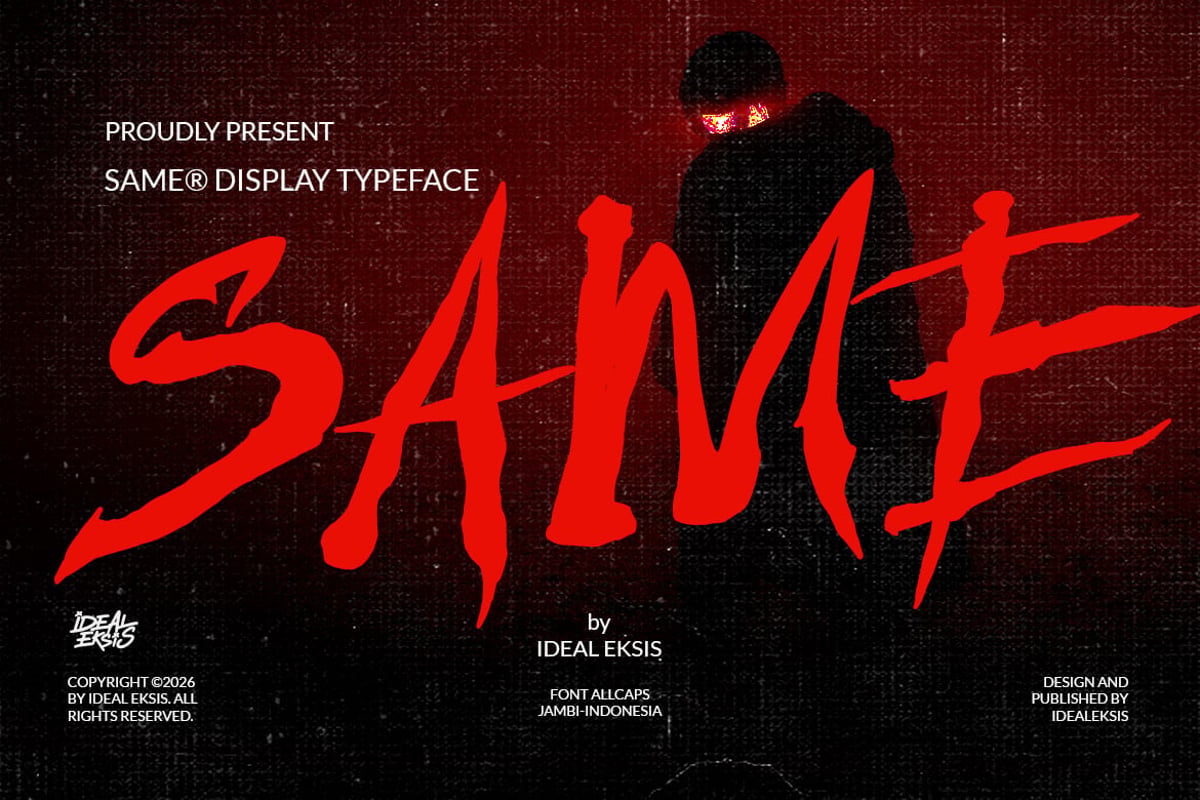
Same - Horror Font
Unleash raw, unbridled energy with this aggressively styled horror font that commands instant attention. This display typeface features jagged letterforms with thick, uneven strokes and sharp, thorn-like terminals. The serrated edges and irregular contours create a visceral visual experience that embodies a gritty, grunge aesthetic. High-contrast weight and hand-drawn quality provide unique character that screams intensity and rebellion. Perfect for high-impact applications including: Cinematic ...